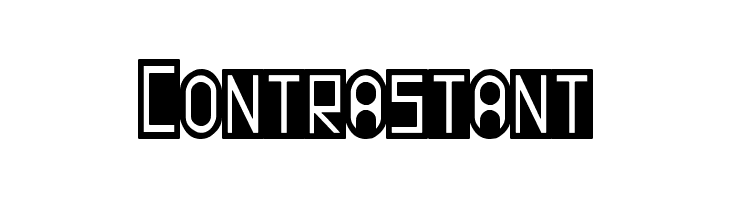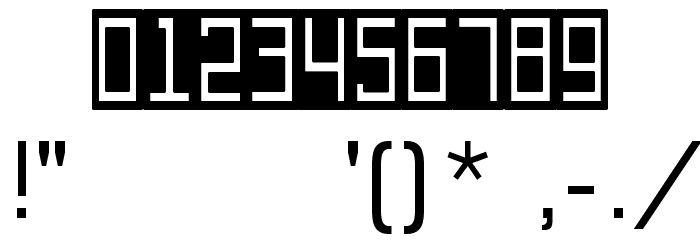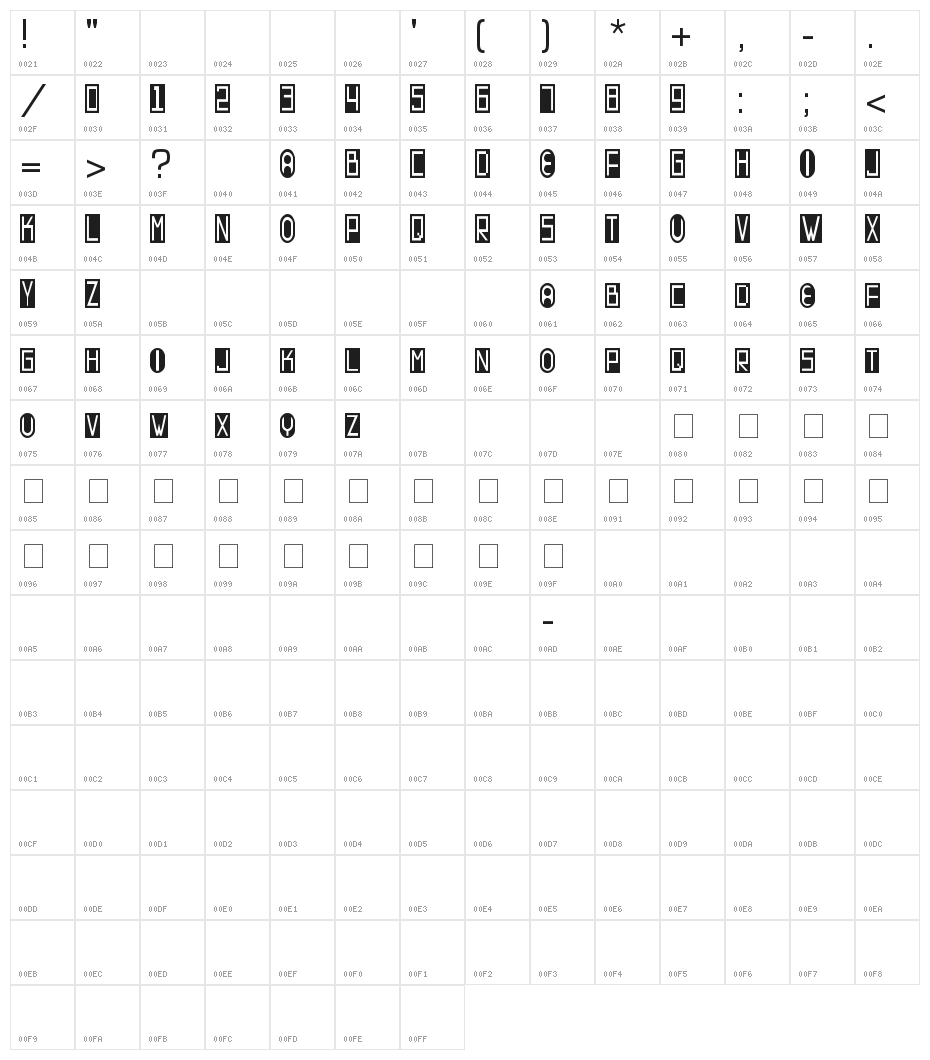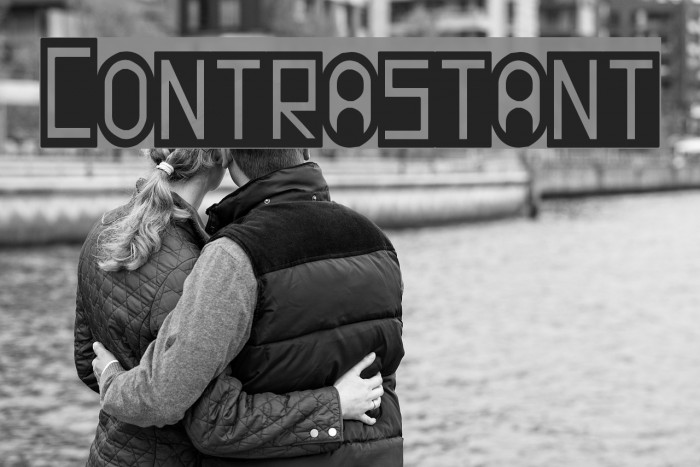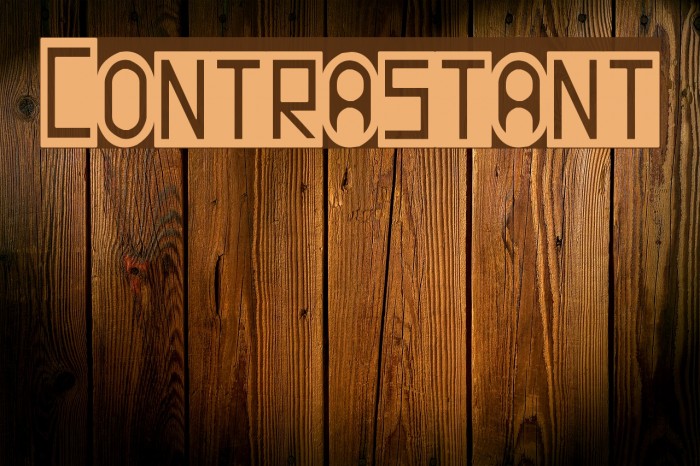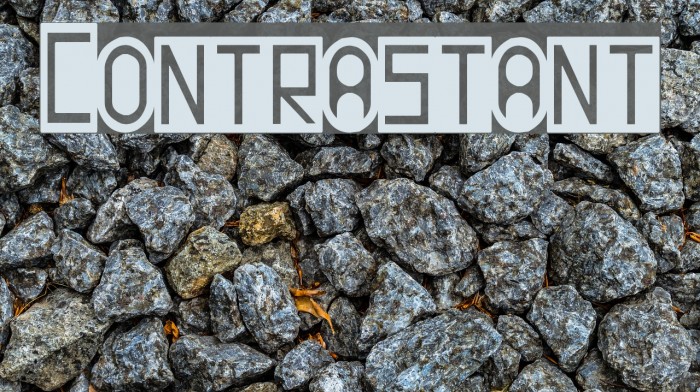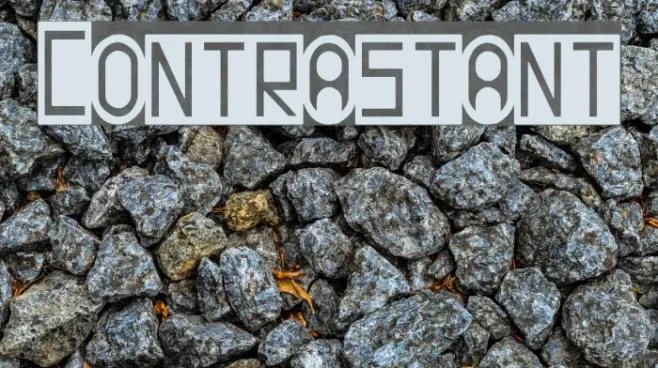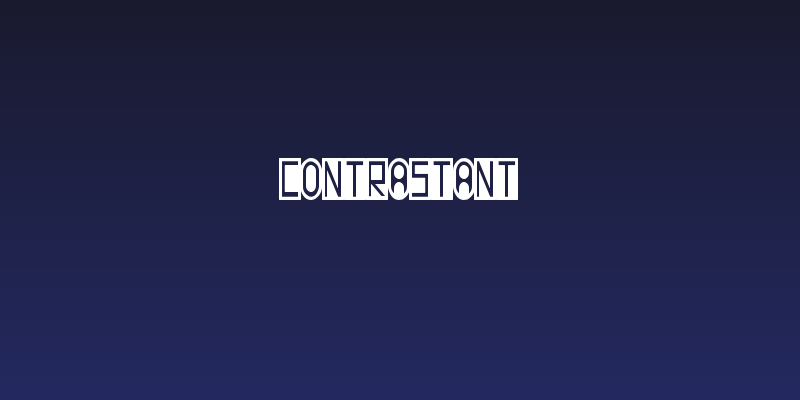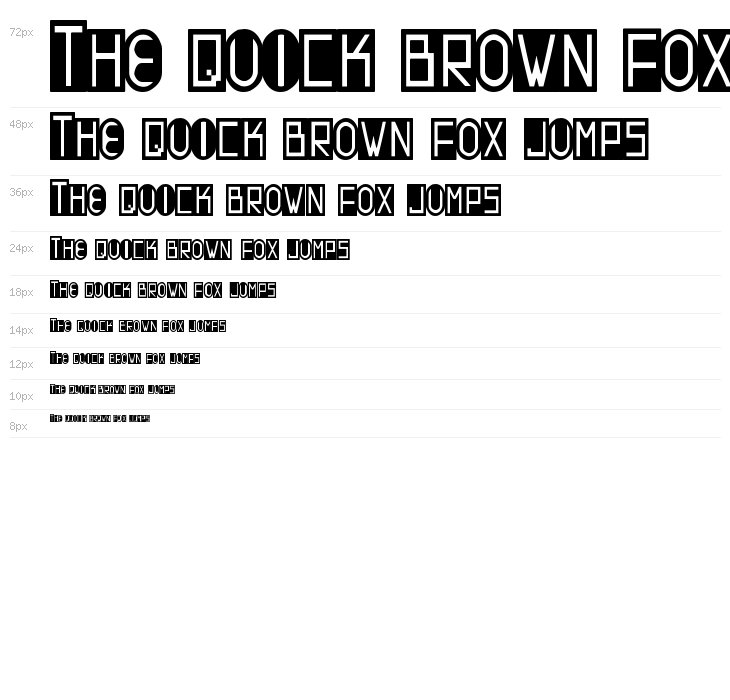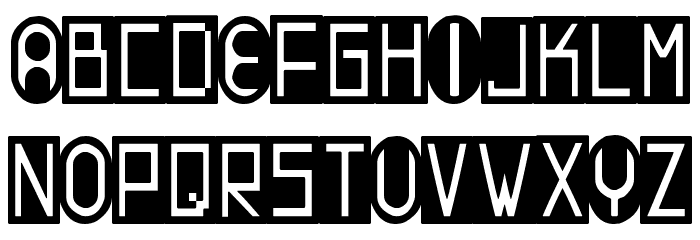
Contrastant Font
Contrastant Description
This font features a bold and geometric design with a strong emphasis on rectangular and circular shapes. The characters are enclosed in solid black blocks, creating a striking contrast between the white letterforms and their backgrounds. The uppercase letters are uniform in height, while the numbers and special characters maintain the same bold style. The font's unique style is characterized by its blocky, futuristic appearance, making it stand out in any design. Its geometric nature and high contrast make it ideal for projects that require a modern and impactful look.